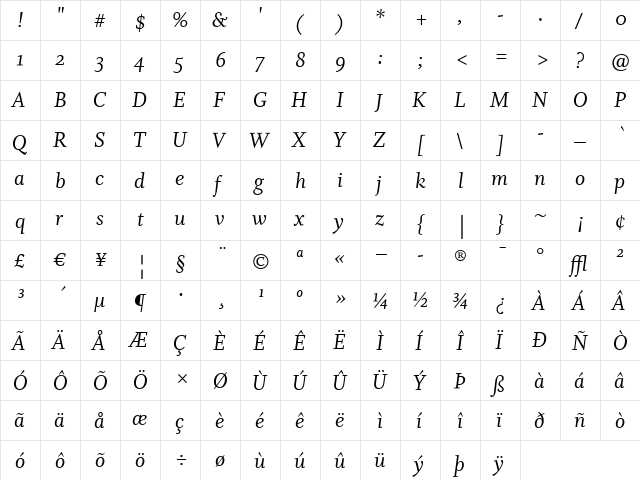
Whitman-ItalicOsF Regular
| Foundry | The Font Bureau, Inc |
| Designer | Kent Lew |
Design Context for Whitman-ItalicOsF Typeface
Whitman-ItalicOsF offers clean, dependable letterforms without strong stylistic allegiance, making it a practical choice for designers who need flexibility. The dynamic lean of this cut emphasises speed and emphasis in any layout.
Pro Tip: Try Whitman-ItalicOsF for annotation and caption copy alongside an upright companion — the contrast in angle creates a dynamic but ordered typographic system.